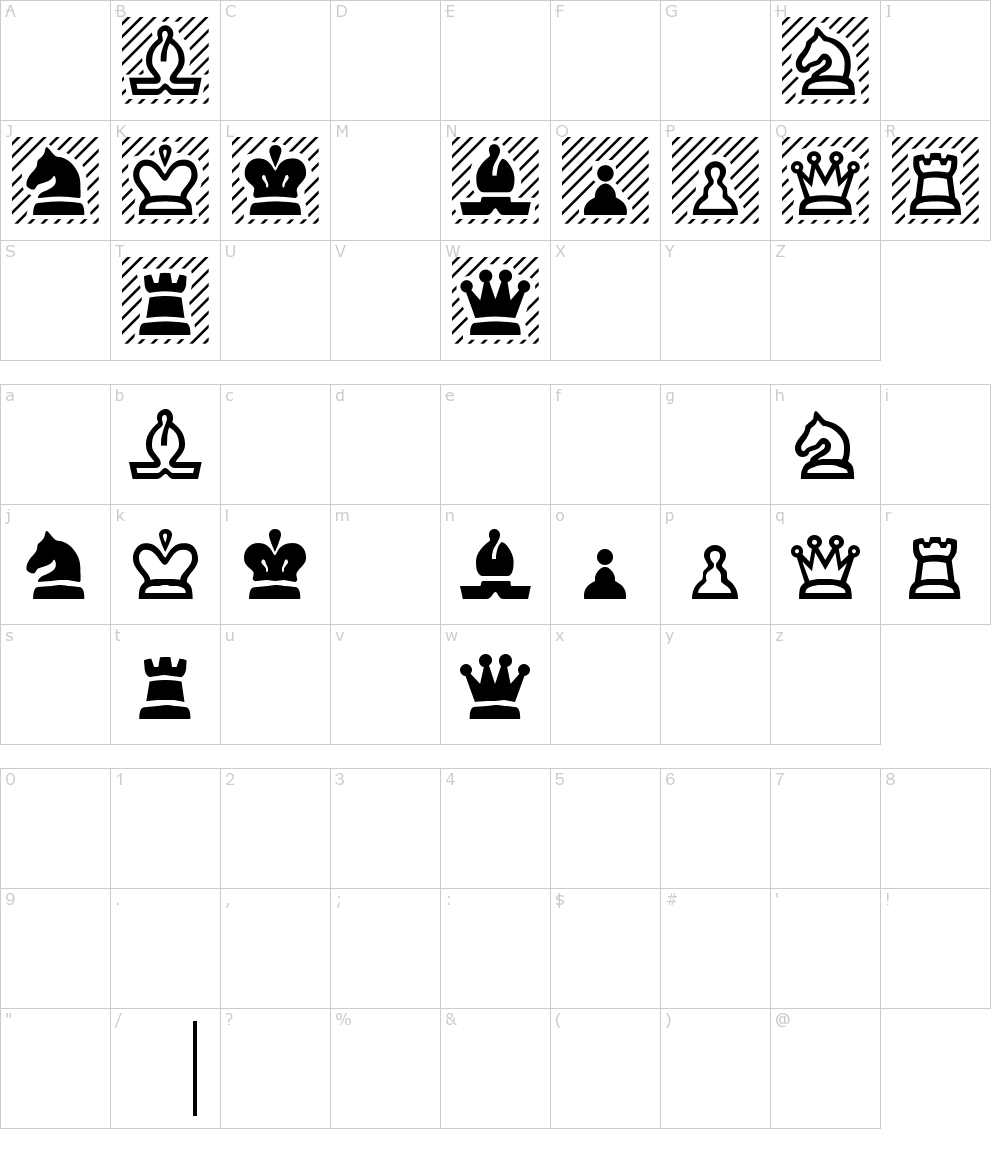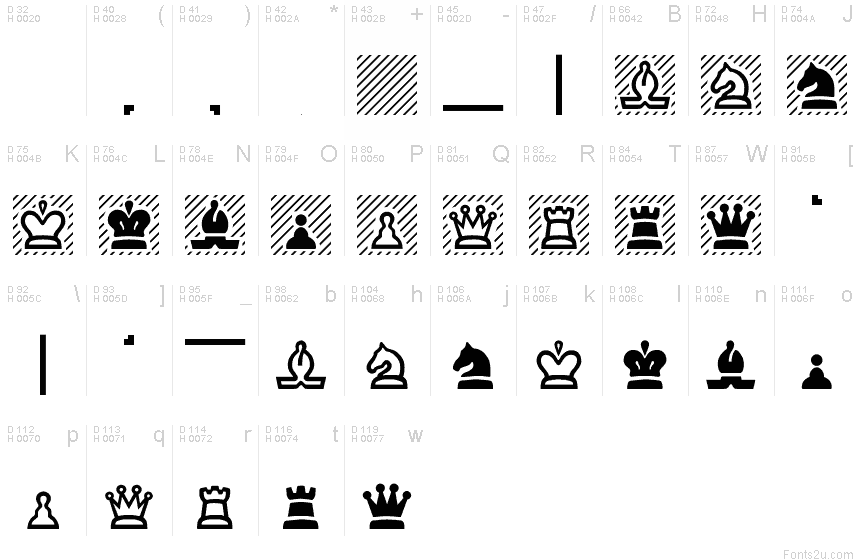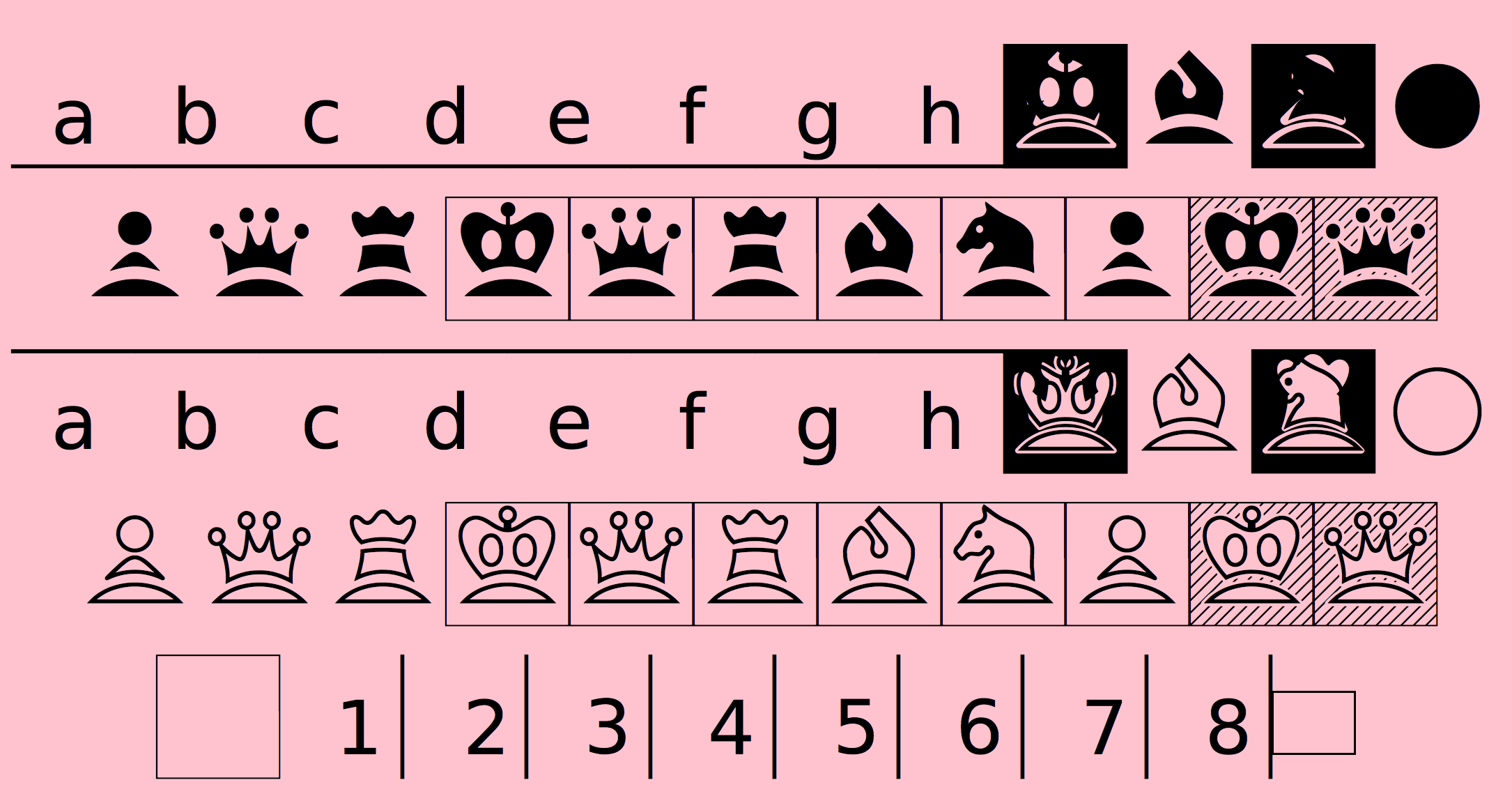
Review Of Chess Fonts Ideas
§ + $ Have Been Replaced With A Filled And Unfilled Vertical Pixelated Line Of Space.
Web For Chess Programs, Some Of My Favourite Fonts Or Piece Themes Are Diagramttfritz, Internet, Merida, Uscf And Zurich.
The Font Was Originally For Making Diagrams With Matthieu's Program Problemiste, A Program For Solving Chess Problems.
Web Segoe Chess Font Is Part Of The Segoe Family Of Fonts From Microsoft.